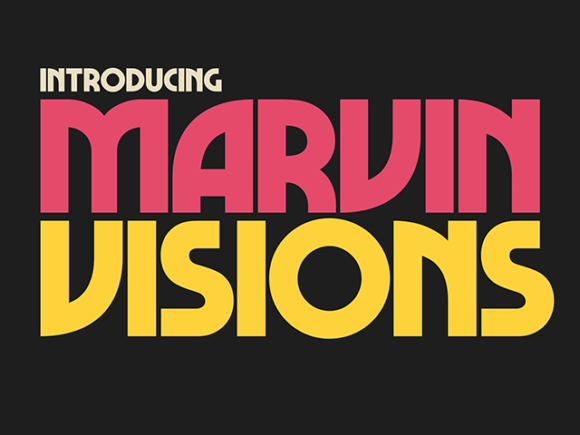
Marvin Visions Typeface
Introducing Marvin Visions Typeface! Marvin Visions designed by Michael Chave in 1969 and published by Face Photosetting. It has been revived by Mathieu Triay for the identity of Visions, a new science fiction magazine that aims to be a literary introduction to the genre, mixing classic texts with new writing. Marvin Visions is a more modern and consistent reinterpretation of Marvin.